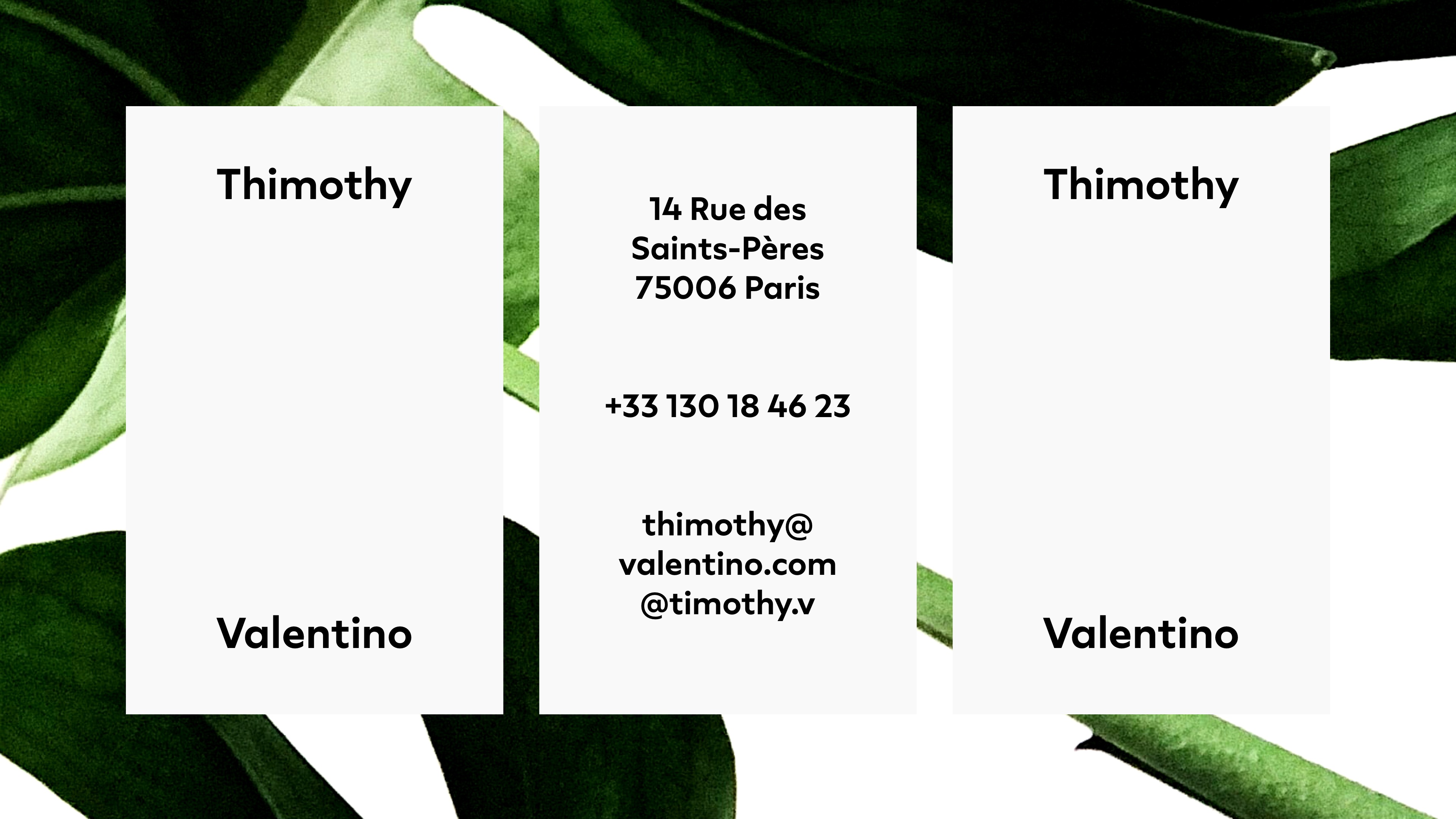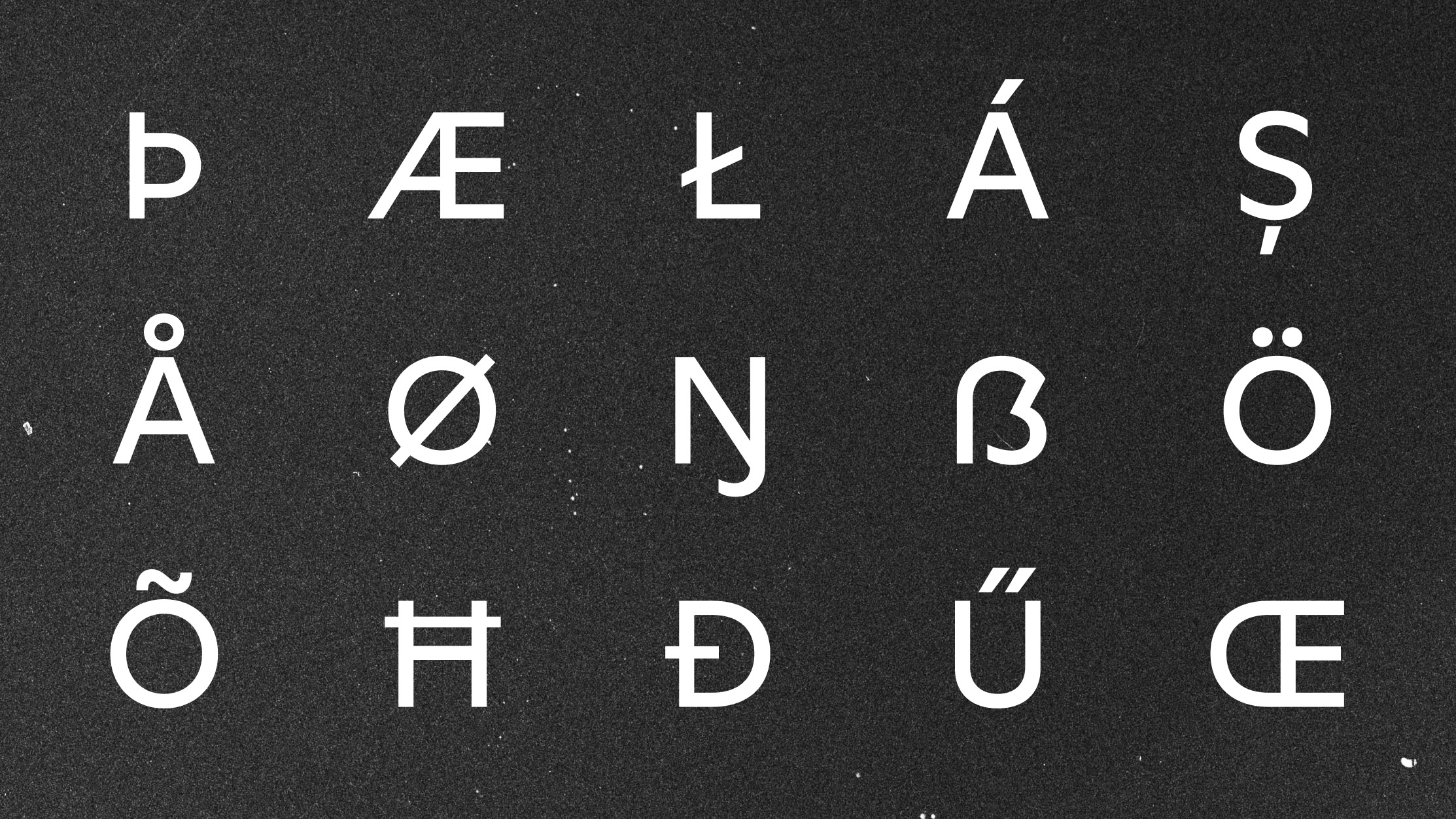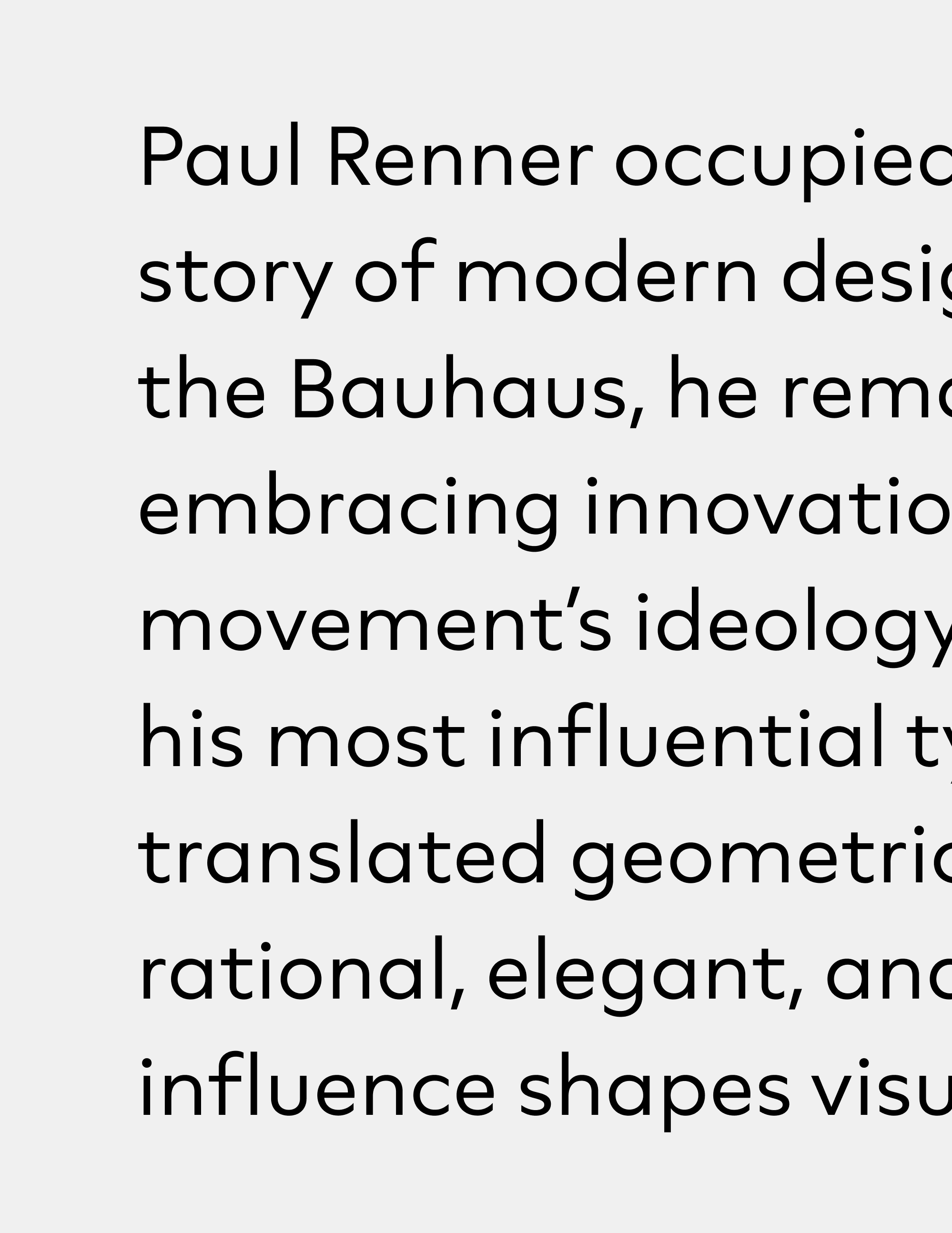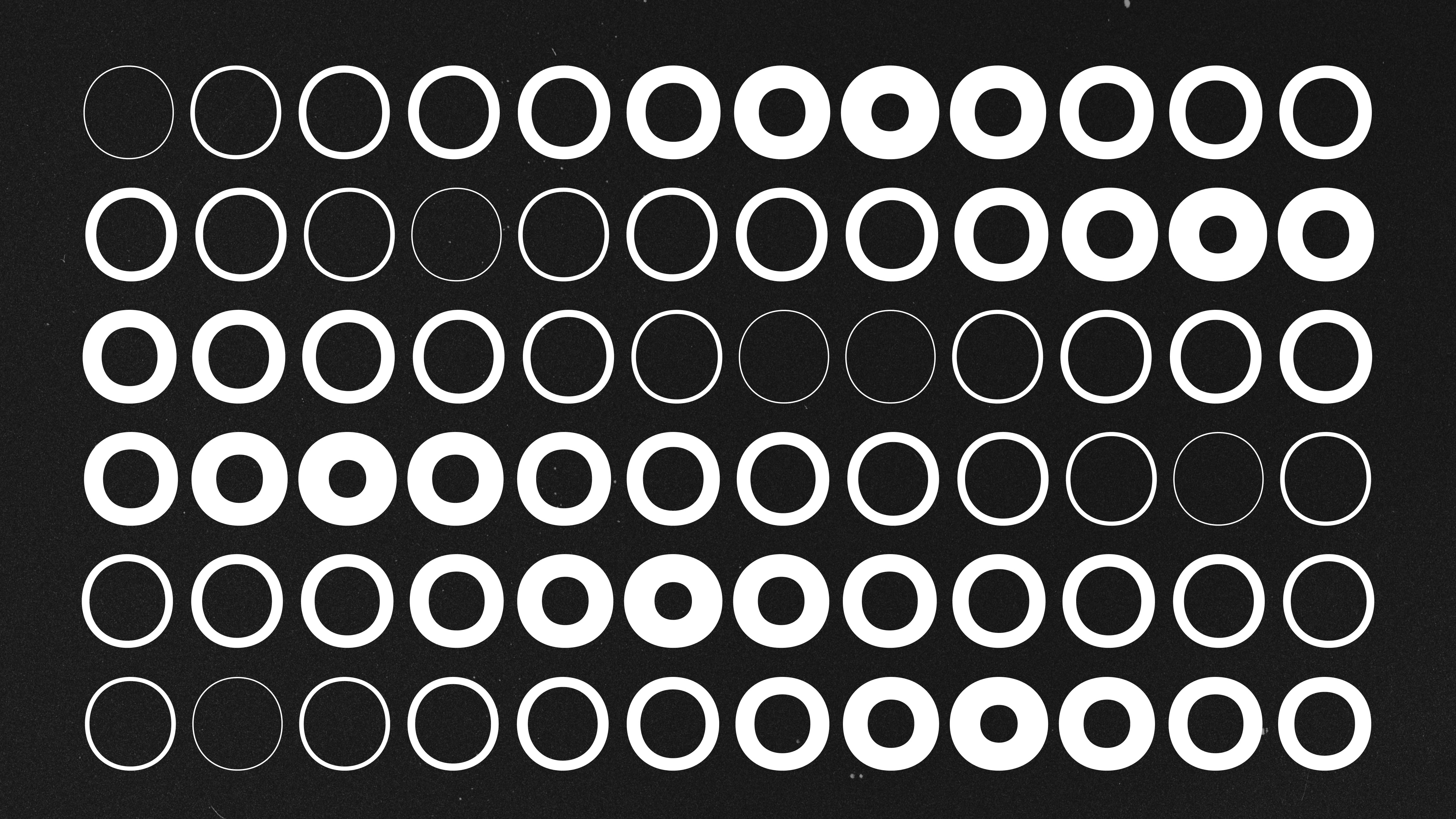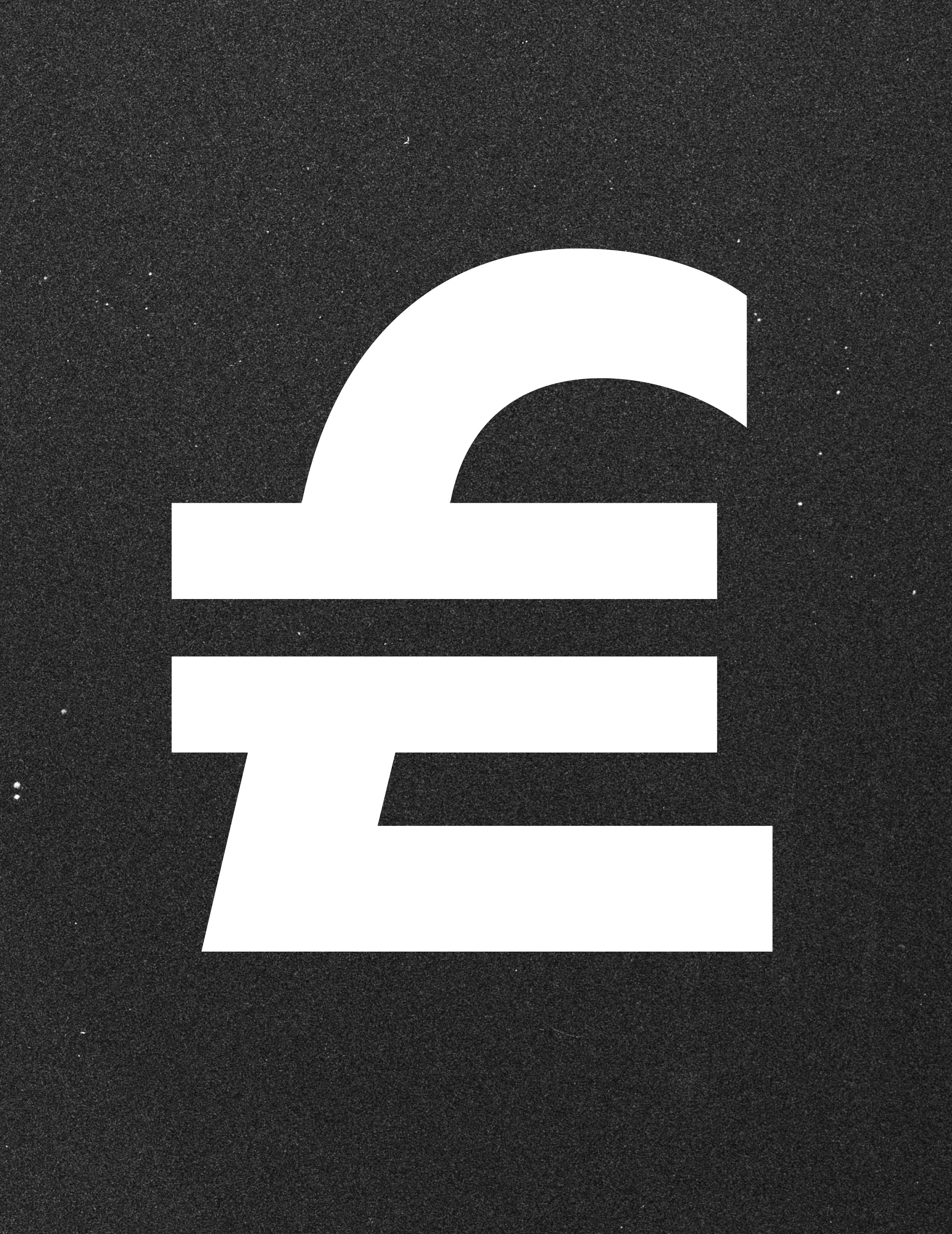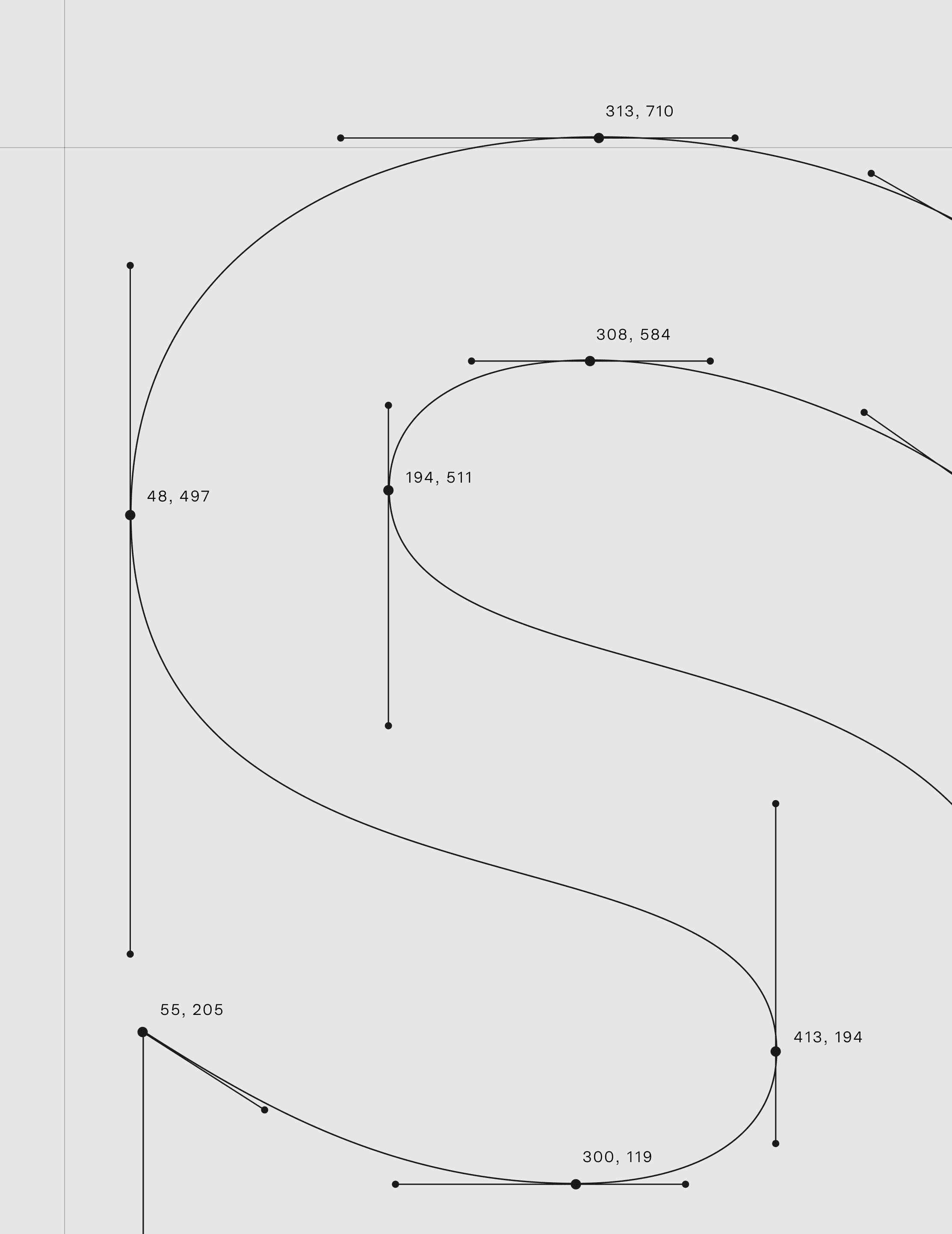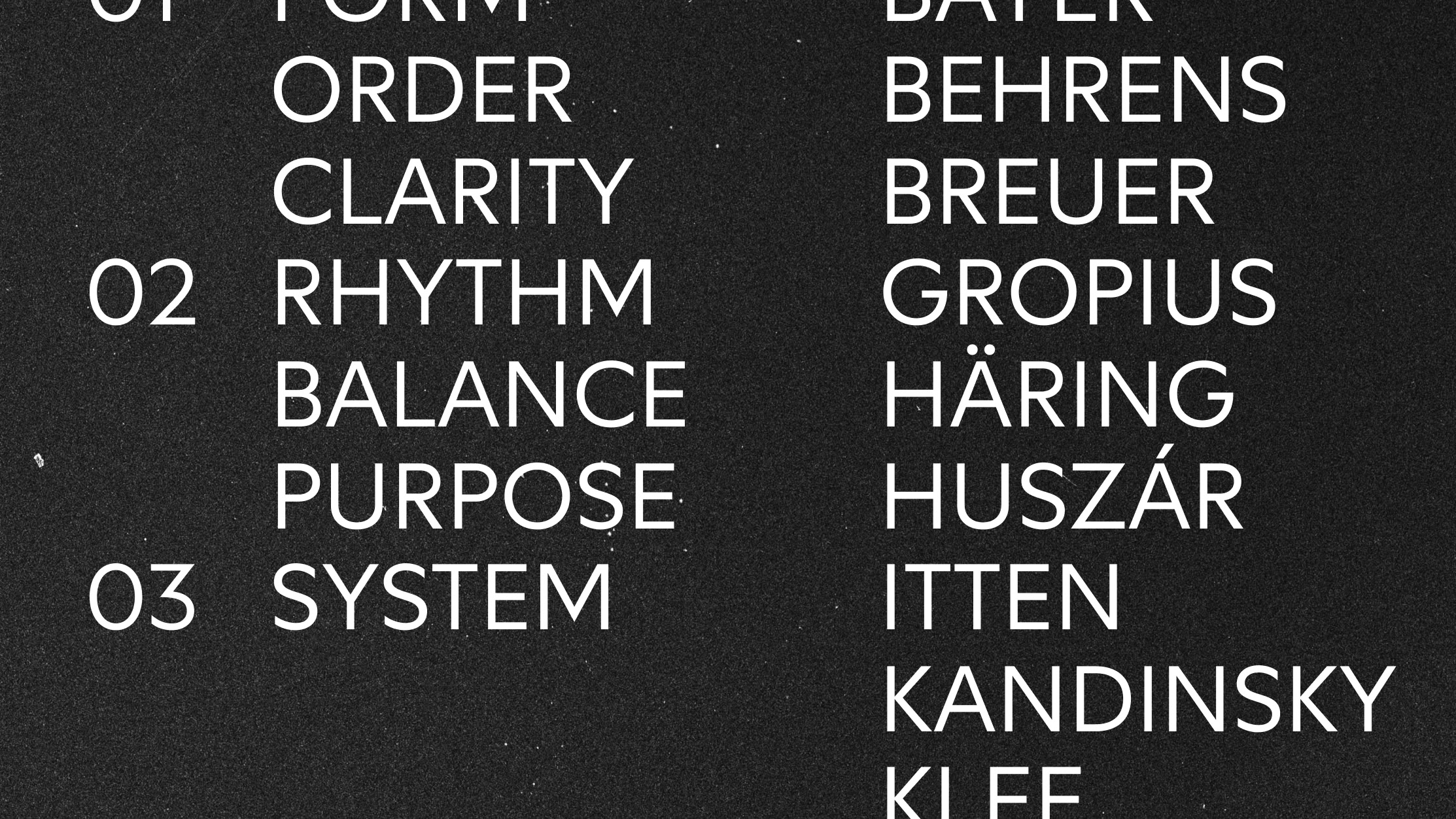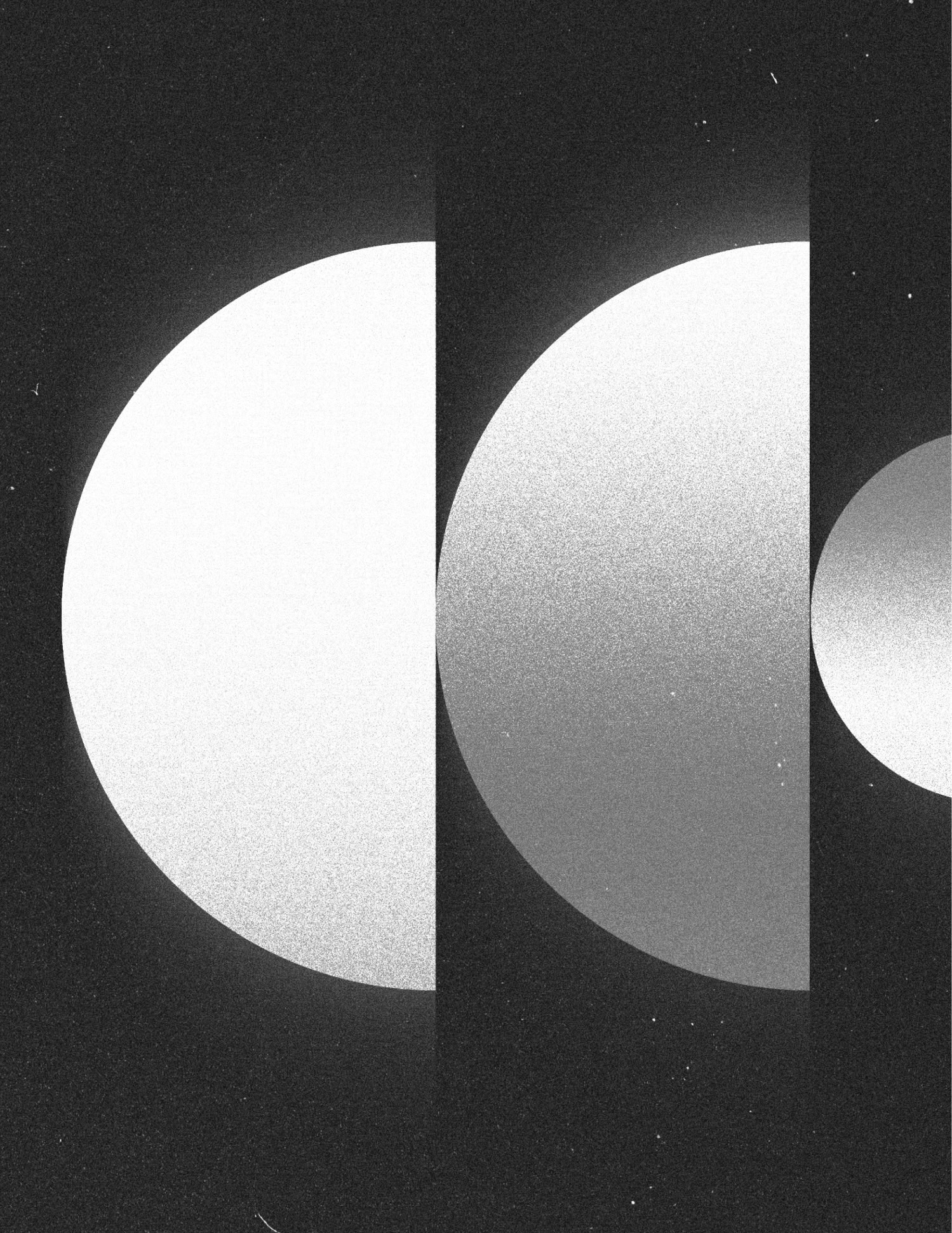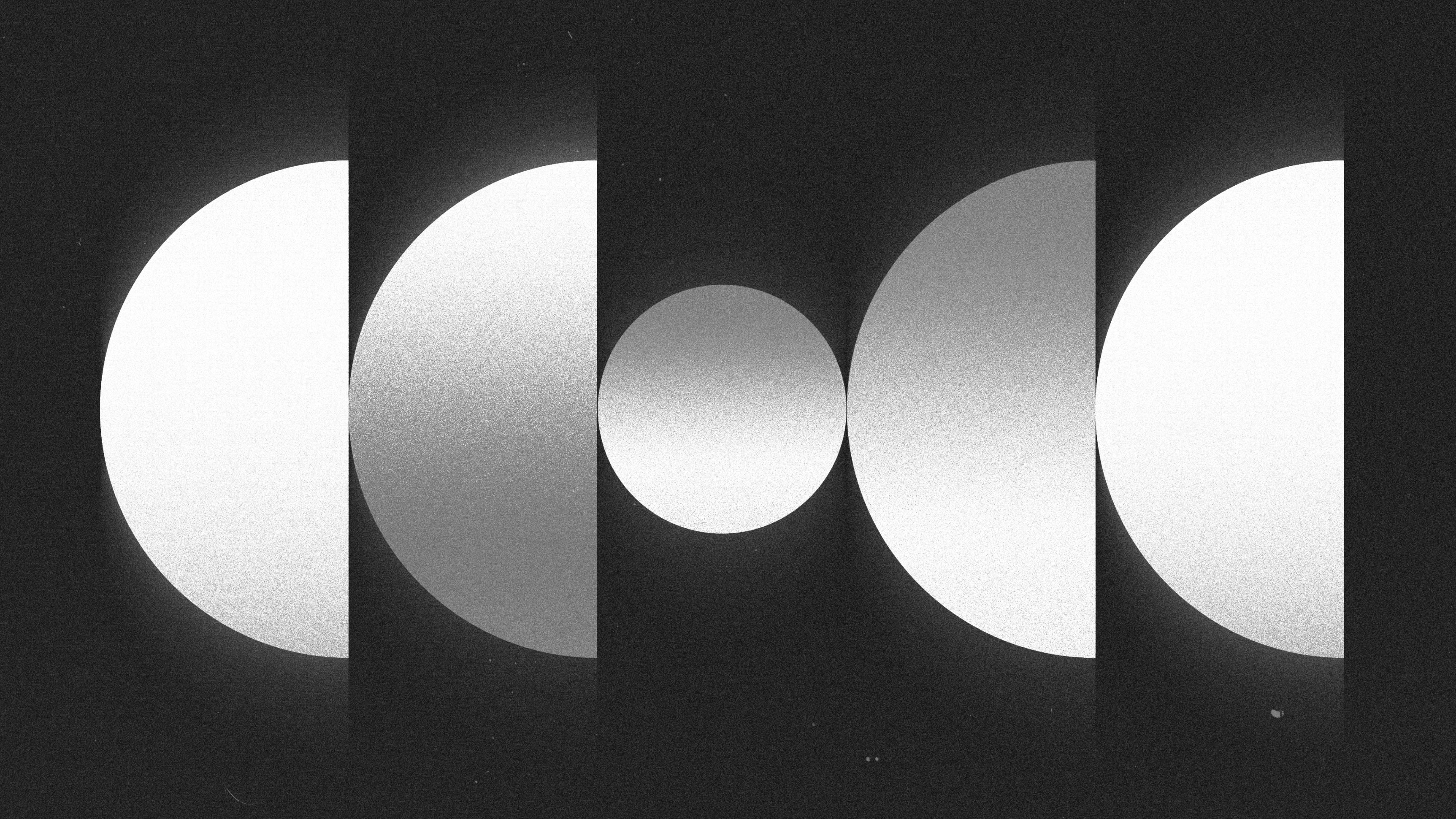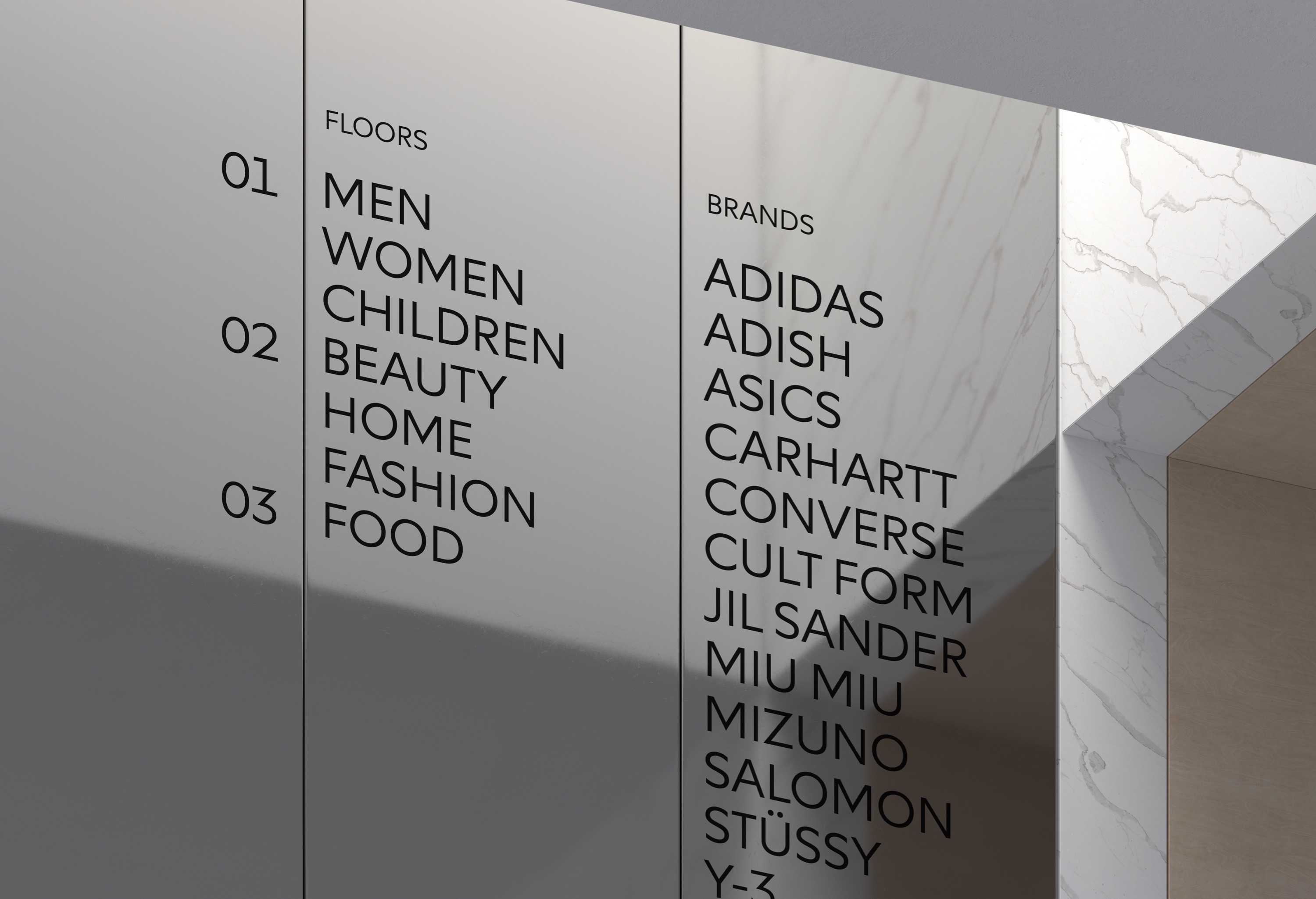
Neurath rethinks Futura with a more human approach, balancing geometric precision with warmth and clarity. The collection is complemented by Neurath Mono, Neurath X, and Neurath X Mono, offering a broad spectrum of typographic expression.